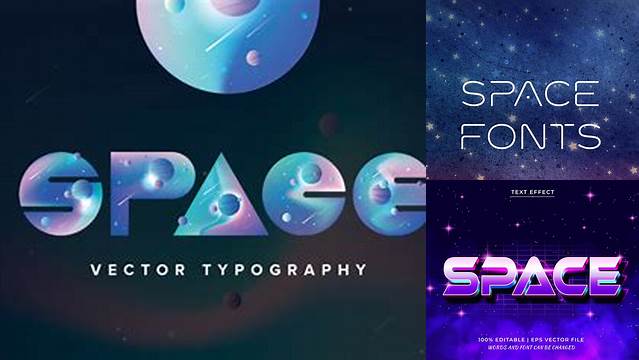
Explore Awesome Space Fonts In Microsoft Word
Hey guys! Ever wanted to give your documents that out-of-this-world feel? Maybe you're creating a presentation about the cosmos, designing a sci-fi movie poster, or just want to inject some interstellar flair into your personal projects. Whatever the reason, using space fonts in Microsoft Word can be a game-changer. These fonts are designed to evoke the vastness, mystery, and futuristic vibe of outer space. From sleek, futuristic sans-serifs to more decorative, alien-inspired designs, there's a whole universe of typography out there waiting for you to explore. Let's dive into how you can find, install, and use these cosmic fonts to make your Word documents truly stellar!
Finding the Best Space Fonts for Your Word Projects
Finding the right space fonts to use in Microsoft Word is like embarking on a cosmic treasure hunt. You want something that screams 'galaxy' or 'spaceship' without being unreadable. The good news is, there are tons of places to find these stellar typefaces. Websites like Google Fonts, DaFont, Font Squirrel, and Adobe Fonts are fantastic starting points. When you're browsing, keep an eye out for keywords like 'sci-fi,' 'futuristic,' 'space,' 'galaxy,' 'alien,' 'cosmic,' or 'technology.' These terms will often lead you to fonts that have that distinctive outer-space aesthetic. Some fonts might have sharp, angular edges like a rocket ship, while others might have a more rounded, ethereal feel reminiscent of distant nebulae. Don't be afraid to experiment! Download a few options that catch your eye and see how they look in your document. Remember, the goal is to find a font that enhances your message and theme. A font that’s too complex might be difficult to read in large blocks of text, so consider where and how you’ll be using it. For headlines or titles, you can often get away with more decorative and bold designs. For body text, it’s usually best to stick with something cleaner and more legible, even if it still carries a subtle space-age vibe. Think about the overall mood you want to create – is it a gritty, industrial space station, or a sleek, utopian future? Your font choice will play a massive role in setting that tone.
Utilizing Space Fonts in Word Documents: Creative Applications
Now for the fun part: using your newly installed space fonts in Word! The possibilities are as vast as the universe itself. For presentations, a bold, futuristic font for your title slide can instantly grab attention. Think about using a sleek, angular font for headings in a report about astronomy or aerospace engineering. It adds a professional yet thematic touch. For invitations to a space-themed party, a more whimsical or alien-looking font could be perfect. Imagine an 'out of this world' wedding invite or a birthday party announcement! Even for less obvious applications, like a creative writing piece set in space, these fonts can immerse your readers. Use a slightly distressed or rugged space font for a story about asteroid mining, or a clean, minimalist one for a tale of interstellar diplomacy. Don't limit yourself to just text! Combine your chosen space fonts with relevant imagery – stars, planets, rockets, or abstract cosmic patterns – to create truly captivating designs within Word. You can even use different space fonts for different elements within the same document to create visual hierarchy and interest. For instance, a strong, blocky font for section titles and a slightly more subdued, yet still spacey, font for subheadings. The key is to maintain readability while maximizing the thematic impact. Experiment with font sizes, weights (bold, regular, light), and even colors to further enhance the space aesthetic. A deep blue or black background with white or silver text can look incredibly cosmic.
Designing Futuristic Titles with Space Fonts
When you’re crafting titles or headlines in Microsoft Word, space fonts can really make them pop. These fonts are often designed with a futuristic aesthetic in mind, featuring sharp lines, geometric shapes, or unique character designs that evoke technology and the future. For example, a title like 'Journey to Andromeda' could be rendered in a font that looks like it was beamed directly from a starship. Think about fonts that have extended ascenders and descenders, or perhaps a subtle glow effect if you're printing on a glossy paper or using a design program to further enhance the Word output. Some space fonts might mimic the look of digital displays found on spacecraft, offering a very authentic sci-fi feel. Others might be inspired by alien alphabets, providing an exotic and mysterious vibe. When choosing a font for your title, consider its legibility from a distance. If it’s for a poster or a presentation slide, people need to be able to read it quickly. Pair a strong, eye-catching space font for your main title with a more conventional, yet still thematically appropriate, font for any subtitles or supporting text to ensure clarity. You can also play with capitalization – ALL CAPS often works well for futuristic titles, giving them a sense of boldness and authority. Experimenting with letter spacing (kerning) can also refine the look; sometimes, slightly wider spacing can give a more technical or open feel. Remember, the title is often the first impression, so making it visually exciting with the right space font is crucial for drawing your audience in.
Enhancing Readability with Subtle Space-Themed Fonts
While many space fonts are bold and decorative, it’s essential to remember that readability is paramount, especially for longer passages of text in Microsoft Word. Thankfully, there are plenty of space-themed fonts that offer a futuristic or cosmic feel without sacrificing legibility. These fonts often retain the core structure of classic typefaces but incorporate subtle design elements like slightly sharper serifs, rounded terminals, or a cleaner, more modern silhouette. For instance, a font might have a name like 'Galactic Sans' but look remarkably similar to a standard Arial or Calibri, just with a touch more polish and an underlying futuristic vibe. When choosing a font for body text, look for clear, well-defined characters. Avoid fonts with excessive stylistic alternates or overly condensed letterforms, as these can become tiring to read over time. A good rule of thumb is to test the font with a decent paragraph of text to see how it flows. Does it create a smooth reading experience, or does it feel choppy and jarring? Consider using these subtler space fonts for your main content and reserve the more elaborate ones for headings and titles. This contrast creates visual interest and ensures that your readers can easily digest the information. Think of it like the background of a space scene – it’s vast and inspiring, but it doesn't distract from the main action. Similarly, a subtle space font provides atmosphere without overwhelming the content itself. It’s all about finding that perfect balance between thematic expression and functional design, ensuring your message is not only seen but also comfortably read by everyone.
Futuristic and Sci-Fi Inspired Fonts
When we talk about space fonts, the first category that usually comes to mind is the futuristic and sci-fi inspired collection. These are the typefaces that immediately transport you to the bridge of a starship or the neon-lit streets of a cyberpunk city. They often feature sharp, angular designs, metallic textures (which can be simulated with color and gradients in Word), or sleek, minimalist lines that convey advanced technology. Think of fonts that look like they’re made of circuits, or have a digital readout appearance. These fonts are perfect for projects that lean heavily into the 'science fiction' aspect of space – tales of robots, aliens, advanced civilizations, and space exploration. They are usually best suited for headlines, titles, logos, or short bursts of text where their distinctiveness can be appreciated without hindering readability. For example, using a font like 'Orbitron' or 'Exo 2' (both available on Google Fonts) can give your document an immediate sense of forward-thinking design. These fonts often play with negative space and structure in unique ways, making each letter feel like a piece of sophisticated engineering. When selecting these, consider the specific sub-genre of sci-fi you're aiming for. Is it a retro-futuristic vibe, like 'The Jetsons,' or a gritty, industrial feel like 'Alien'? The font choice can significantly influence this perception. Don't be afraid to go bold with these; they are designed to make a statement and capture the imagination, making your Word documents stand out from the ordinary.
Galactic and Cosmic Themed Fonts
Beyond the purely technological, there are space fonts that capture the more awe-inspiring and mysterious aspects of the cosmos – the 'galactic and cosmic themed' fonts. These typefaces often evoke the beauty of nebulae, the swirling patterns of galaxies, or the vast emptiness of deep space. They might feature softer, more flowing lines, subtle gradients, or even textures that suggest stardust or celestial bodies. Some might have a more ethereal or mystical quality, perfect for stories about cosmic consciousness or ancient alien prophecies. Others could be inspired by astrological symbols or astronomical charts, lending an air of ancient wisdom and wonder. These fonts are fantastic for projects that focus on the wonder and mystery of space, rather than just the technology. Think about using them for event invitations for a star-gazing party, or for a book cover about mythology and the stars. They can also add a touch of elegance and sophistication to designs that might otherwise feel too 'hard' sci-fi. When using these, consider how they pair with colors. Deep blues, purples, and shimmering silvers or golds can really bring out the cosmic feel. Experiment with effects in Word, like subtle shadows or outer glows, to mimic the luminescence of celestial objects. The goal here is to tap into the sublime beauty of the universe and translate that feeling into your typography, making your Word documents feel truly magical.
Alien and Extraterrestrial Inspired Fonts
Ready to get a little weird? The 'alien and extraterrestrial inspired' space fonts category is where things get truly creative and often a bit bizarre! These fonts are designed to look like they originated from another world entirely. They might feature unconventional letterforms, strange symbols, or an overall aesthetic that defies easy description. Think jagged edges, pulsating shapes, or characters that seem to writhe and shift. These fonts are perfect for projects that involve encountering alien life, exploring unknown planets, or dealing with truly otherworldly phenomena. They can add a sense of the unknown, the bizarre, and the downright strange to your Word documents. Use them sparingly for maximum impact, perhaps for a key alien name, a mysterious artifact description, or a title that needs to feel truly out of this world. Imagine a headline for a blog post about 'The Roswell Incident' or a fictional story about encountering a bizarre alien species. These fonts can instantly set a tone of mystery and intrigue. However, be warned: these fonts can sometimes be challenging to read. It’s crucial to test them thoroughly to ensure your audience can decipher the message. Pairing them with a very clean, standard font for the rest of the text is usually a wise strategy. These fonts are your go-to when you want to push the boundaries of conventional design and make your content feel genuinely alien.
Retro Space Age Fonts
Let's take a trip back in time, shall we? The 'retro space age' space fonts category taps into the optimism and distinct aesthetic of the mid-20th century's fascination with space exploration. Think of the atomic age, Sputnik, early NASA missions, and the Jetsons! These fonts often have a distinctive charm, characterized by rounded edges, bubbly forms, playful curves, and sometimes a slightly kitschy feel. They evoke a sense of optimistic futurism, where space travel was seen as exciting and full of wonder, often depicted with sleek rockets and friendly robots. These fonts are excellent for projects that want to capture that specific nostalgic vibe. Perhaps you're designing an invitation for a 1950s-themed sci-fi night, creating a poster for a retro-futurist art exhibition, or writing a story that harks back to that era. Fonts like 'Peace Sans' or 'Bangers' (though not strictly 'space,' they have the vibe) can help achieve this. They offer a lighter, more approachable take on the space theme compared to the more serious or gritty sci-fi fonts. They can bring a sense of fun and retro cool to your Word documents. When using these, consider pairing them with vintage color palettes – pastels, muted tones, or bold primary colors often associated with that period. It's all about recapturing that unique blend of retro style and forward-looking aspiration that defined the early space age.
Minimalist and Clean Space Fonts
Not all space fonts need to be flashy or overtly themed. Sometimes, the most effective way to convey a sense of the future or space is through minimalist and clean design. This category of fonts focuses on simplicity, geometric precision, and a streamlined aesthetic. These typefaces often feature clean lines, uniform stroke widths, and well-defined letterforms, giving them a modern, sophisticated, and subtly futuristic feel. Think of fonts that you might see on the interface of a high-tech device or the signage in a futuristic city. They convey efficiency, order, and advanced design without being overly decorative. These are incredibly versatile and can be used across a wide range of projects, from technical manuals and corporate reports to minimalist website designs or app interfaces. Their strength lies in their legibility and their ability to impart a sense of professionalism and cutting-edge technology. Fonts like 'Montserrat,' 'Lato,' or 'Roboto' (all widely available) have a clean, modern feel that can easily be adapted to a space theme with the right context and color palette. When you want your design to feel sleek, sophisticated, and forward-thinking without shouting 'space!', these minimalist fonts are your best bet. They provide an understated elegance that speaks volumes about advanced design and forward momentum, making your Word documents feel polished and contemporary.
Choosing the Right Font Pairing
Alright guys, let's talk about making your space fonts work harmoniously within your Microsoft Word documents. Font pairing is key to creating a professional and visually appealing design. When you're using a distinctive space font for your headings or titles, it's crucial to select a complementary font for your body text. The goal is usually to pair a more decorative or eye-catching font with a simpler, highly legible one. For example, if you choose a bold, angular sci-fi font for your main title, opt for a clean sans-serif like Arial, Calibri, or even a more subtly themed font like 'Open Sans' for your paragraphs. This contrast ensures that your headlines grab attention while your main content remains easy to read. Think of it like background music and a lead singer – one sets the mood, the other delivers the message clearly. Avoid pairing two highly decorative fonts together, as this can lead to visual clutter and make your document difficult to digest. Always test your pairings by writing out a few sentences or a paragraph. Does it look balanced? Is it easy on the eyes? Sometimes, even a slight variation in font weight (e.g., using a light or regular weight of your heading font for subheadings) can create a nice hierarchy. Don't be afraid to experiment, but always keep readability and the overall aesthetic of your space theme in mind. A well-chosen font pairing elevates your design from amateur to professional, making your cosmic creations shine.
Mastering Font Size and Hierarchy
When you're working with space fonts in Word, understanding font size and establishing a clear hierarchy is super important. You want your readers to easily navigate your document and understand what's most important. Generally, your main titles should be the largest, followed by subheadings, and then your body text should be the smallest (but still comfortably readable). For space-themed documents, you can use font size strategically to enhance the theme. For instance, a huge, impactful title in a bold space font can immediately convey a sense of grandeur, like the title of an epic space saga. Subheadings can be slightly smaller but still distinct, perhaps in a lighter weight of the same font or a complementary font. Body text should be sized appropriately for comfortable reading – usually between 10-12 points, depending on the font. Don't go too small, or your readers will need a telescope! Conversely, avoid making everything the same size, as this creates a flat, uninteresting design. Use variations in size to guide the reader's eye through the information. For instance, you might use a slightly larger size for the first sentence of a paragraph (a drop cap effect, essentially) to draw readers in. This control over size and hierarchy is crucial for maintaining clarity, especially when using unique or decorative space fonts that might otherwise be difficult to scan quickly. It ensures your cosmic message gets across loud and clear.
Playing with Font Colors and Effects
Let's add some cosmic sparkle, shall we? Using font colors and effects in Microsoft Word can really bring your space fonts to life and amplify the interstellar theme. Think about the colors of the universe: deep blues, vibrant purples, fiery oranges, stark blacks, and shimmering silvers or golds. These are your palette! For a classic space look, try white or light grey text on a dark blue or black background. This mimics the stars against the night sky. You can also use gradients to create metallic effects or simulate the look of distant nebulae. Experiment with subtle effects like shadows or outer glows. A soft outer glow can make your text appear luminous, like a distant star or a glowing alien artifact. A subtle drop shadow can add depth and make your text stand out from the background. For a more futuristic feel, consider using metallic gradients – silver, chrome, or even iridescent colors. Remember, the key is often subtlety. Overdoing effects can make your text look cluttered and unprofessional. Always ensure that your chosen colors and effects maintain readability. Test them in different lighting conditions if you were printing the document. The goal is to enhance the space theme and make your text visually engaging without sacrificing the core message. It’s like adding stardust to your design – a little goes a long way!
Ensuring Readability with Bold and Italic Styles
Even with the coolest space fonts, you still need to make sure your text is readable, guys. That's where bold and italic styles come in handy. Bold is fantastic for emphasizing key terms, making them stand out like distant planets in the night sky. If you're introducing a new concept, a crucial piece of data, or a character's name, making it bold ensures it catches the reader's eye. Use bold sparingly, though; too much bold text can feel aggressive and disrupt the flow. Italics are great for a slightly different kind of emphasis, often used for foreign words, thoughts, or titles of works within your text. In a space context, you might use italics for alien species names or for conveying a sense of internal monologue from a character aboard a spaceship. Be mindful that some decorative space fonts might have less distinct bold or italic variants, or they might not render as clearly. Always test these styles to see how they look and if they maintain legibility. If a specific space font's bold or italic versions look clunky or unreadable, it might be better to use a different font for emphasis or stick to sentence case for clarity. The smart use of bold and italics helps guide the reader and highlight important information, making your cosmic narrative or report easier to follow.
Using Space Fonts for Specific Document Types
So, how do you tailor your space fonts for different kinds of documents in Microsoft Word? Let’s break it down. For a science fiction story or novel, you might opt for more dramatic and atmospheric fonts. A title could be in a bold, alien-inspired font, while the main text might use a clean, readable font with a subtle futuristic edge. The key is immersion. For presentations or slideshows, clarity and visual impact are paramount. Use bold, attention-grabbing space fonts for titles and key bullet points, but ensure your main text is easily readable from a distance. Think simple, impactful designs. For invitations or party flyers, you can get more creative and playful. A themed font that clearly shouts 'space party!' or 'galaxy gala!' would be perfect. Don't worry too much about long-form readability here; it's about setting the mood. For technical reports or academic papers related to space, a minimalist, clean, and highly legible font is usually the best choice. While you might still use a subtle space-themed font, prioritizing clarity and professionalism is essential. Think sleek, modern, and functional – like the control panel of a spacecraft. For personal projects or creative journaling, the sky's the limit! Use whatever space fonts best express your creativity, whether it's whimsical, retro, or cutting-edge. The context of your document will always guide your font choices, helping you select the perfect cosmic typeface for the job.
Popular Online Font Repositories
Guys, if you're on the hunt for the perfect space fonts, the internet is your oyster! There are numerous fantastic online repositories where you can discover, download, and sometimes even preview thousands of typefaces. Google Fonts is a brilliant, free resource offering a vast library of high-quality fonts that are easily searchable. You can filter by style, popularity, and even thickness, making it a great place to start for clean, modern, and often subtly futuristic fonts. DaFont is another massive archive, known for its eclectic mix of free fonts, including many creative and themed designs. You'll find tons of 'sci-fi,' 'fantasy,' and 'techno' categories here, perfect for finding those unique space vibes. Just be sure to check the licenses – many are free for personal use but require a purchase for commercial projects. Font Squirrel is excellent for finding free fonts that are commercially licensed, offering a curated selection of high-quality typefaces. They also have a great font identifier tool if you see a font you like elsewhere. Adobe Fonts (included with a Creative Cloud subscription) provides a premium collection of professional fonts, many of which are perfect for space-themed designs. Browsing these sites, using keywords like 'space,' 'galaxy,' 'futuristic,' 'robot,' or 'cyberpunk,' will yield a universe of options to download and install into Word.
Free vs. Paid Space Fonts: What's the Difference?
When diving into the world of space fonts, you'll quickly notice there's a distinction between free and paid options. Free fonts, often found on sites like DaFont or Google Fonts, are fantastic for personal projects, experimentation, or when you're on a tight budget. They can offer incredible creativity and stylistic range, allowing you to explore many different cosmic aesthetics without spending a dime. However, 'free' often comes with caveats. Many free fonts are released under licenses that restrict commercial use – meaning you can't use them for logos, products, or anything that makes money. They might also lack the extensive character sets, weights (like light, bold, regular), and OpenType features (like ligatures or stylistic alternates) that professional fonts offer. Paid fonts, on the other hand, typically come from foundries or independent designers and usually cost money. The advantage here is robust licensing – you generally get rights for commercial use. They also tend to be meticulously crafted, offering a wider range of weights, styles, extensive language support, and advanced typographic features. For professional or client work, investing in a paid space font can ensure quality, legal compliance, and a more polished final product. Think of it as buying a quality tool versus a free, sometimes less reliable, one.
Navigating font licenses is a crucial step when downloading space fonts, especially if you plan to use them beyond personal doodling in Microsoft Word. A font license is essentially a legal agreement between you (the user) and the font creator or distributor. It outlines how you can and cannot use the font. Common licenses include: Personal Use Only: This is restrictive. You can use the font for your own enjoyment, but not for anything public-facing or commercial. Commercial Use: This allows you to use the font for business purposes, like marketing materials, logos, websites, or products. There might be different tiers of commercial licenses (e.g., for small businesses vs. large corporations). Desktop/App License: This typically covers installation on a certain number of computers for use in desktop applications like Word. Webfont License: If you plan to use the font on a website, you'll likely need a specific webfont license. Open Source/SIL License: These are often very permissive, allowing broad use and modification, but still require attribution or adherence to certain conditions. Always read the license! It's usually found on the download page or within the font's readme file. Ignoring licenses can lead to copyright infringement issues, so it's better to be safe than sorry when choosing your cosmic typefaces.
Checking Font Compatibility with Microsoft Word
Before you get too excited about a new space font, it's wise to ensure it's compatible with Microsoft Word. Generally, fonts that use standard file formats like .ttf (TrueType Font) and .otf (OpenType Font) are widely compatible with both Windows and macOS, and therefore with Microsoft Word. These are the most common formats you'll encounter. Some older or more specialized fonts might come in formats like .fon or .woff (web font format), which might not install or function correctly directly within Word. If you download a font and it doesn't appear in Word's font list after installation and restarting the application, check the file format. You might need to find a converted version or stick to more standard formats. Most reputable font download sites will clearly indicate the file format. When in doubt, search for the font name plus '.ttf' or '.otf' to see if a compatible version is available elsewhere. Ensuring compatibility upfront saves you the headache of troubleshooting later and guarantees your stellar designs can be implemented smoothly in your Word documents.
Tips for Organizing Your Font Collection
As you start downloading more and more space fonts, your collection can quickly become a chaotic nebula! Having a good organization system is key to finding the perfect font when you need it. First, create a dedicated folder on your computer, perhaps named 'My Fonts' or 'Creative Fonts.' Within that, you can create subfolders for different categories, like 'Space Fonts,' 'Sci-Fi,' 'Retro,' 'Minimalist,' etc. When you download a font, extract it immediately and place the .ttf or .otf files into the appropriate subfolder. Consider using a font management application. Software like FontBase (free), NexusFont (free for Windows), or Suitcase Fusion (paid) allows you to preview, activate, and deactivate fonts without needing to install them permanently. This is incredibly useful for managing large libraries and preventing system slowdowns. You can often tag fonts with keywords (like 'space,' 'galaxy,' 'futuristic') within these managers, making them searchable. Keep your system fonts separate from your downloaded fonts. Regularly back up your font collection to an external drive or cloud storage to prevent data loss. A well-organized font library means less time searching and more time creating cosmic masterpieces in Word!
Creating Text Effects and Styles
Microsoft Word offers built-in tools that allow you to go beyond basic font usage and create cool text effects with your space fonts. While not as sophisticated as dedicated graphic design software, you can still achieve some impressive results. Use the 'Text Effects' option found in the Font group on the Home tab. Here, you can apply presets that mimic outlines, shadows, reflections, and glows. For a space theme, try applying an 'Outer Glow' effect in a color like electric blue or cosmic purple to a clean, futuristic font. A 'Reflection' effect can give text a sleek, metallic appearance. You can also manually customize these effects. For instance, select your text, go to 'Format Shape' (or 'Format Text Effects' depending on your Word version), and adjust the glow color, size, and transparency. Combine different effects for unique looks. Perhaps an outline on a font with a subtle gradient fill? For a truly 'digital readout' look, you might use a monospaced space font and add a subtle green or cyan outer glow. Remember to use these effects judiciously; overdoing them can make text unreadable. These effects are perfect for titles, logos, or call-to-action buttons within your Word documents to give them that extra sci-fi polish.
Working with Glyphs and Special Characters
Many space fonts, especially those designed with a sci-fi or alien theme, come with special glyphs and characters that you won't find on a standard keyboard. These can include alternate letterforms, stylistic swashes, ligatures, or even unique symbols and icons. To access these in Microsoft Word, you'll use the 'Glyph' panel. You can usually find this under the 'Insert' tab, within the 'Symbols' dropdown menu. Select your space font, and the panel will display all the available characters, including the hidden gems. Clicking on a glyph you want to use and then clicking 'Insert' will add it to your document. Some fonts might offer multiple versions of the same letter (e.g., a swashy 'A' versus a simple 'A'), allowing you to add unique flair. Others might include small icons like stars, arrows, or futuristic symbols that can be used as decorative elements or bullet points. Exploring the glyphs is like unlocking secret alien code! It allows you to push the stylistic boundaries of your chosen font and add authentic, unique details to your space-themed Word creations. It’s a powerful way to make your typography truly stand out.
Integrating Space Fonts with WordArt
While dedicated space fonts offer a direct route to a cosmic aesthetic, you can also leverage Microsoft Word's WordArt feature to achieve similar or even enhanced effects. WordArt allows you to create stylized text with various fills, outlines, and effects, which can then be applied to any font, including your downloaded space fonts. To use it, go to the 'Insert' tab and click 'WordArt.' Choose a style, and then type your text. Now, here's the trick: you can change the font of the WordArt object to one of your installed space fonts. After that, you can further customize it using the WordArt-specific formatting options (under the 'Shape Format' tab). Experiment with gradient fills that mimic nebulae or metallic surfaces. Apply 'Transform' effects to make your text curve or warp like it’s on a spaceship's display screen. You can combine a unique space font with a WordArt gradient and a subtle text effect for a truly dynamic title. WordArt essentially acts as a powerful layer of customization on top of your chosen font, enabling you to create highly customized, eye-catching text elements that perfectly capture the essence of outer space within your Word documents. It’s a great way to add that extra professional flair.
Using Outline and Shadow Effects Creatively
Let's get a little more granular with those text effects we talked about, guys. Using outline and shadow effects creatively with your space fonts can add significant depth and visual interest to your Word documents. With your text selected, go to the 'Text Effects' menu (often under the 'Format' tab when text is selected) and choose 'Outline.' You can select a color for the outline – perhaps a bright contrasting color like neon green or electric blue against a dark font, or a subtle silver outline on a black font. You can also adjust the 'Weight' of the outline to make it thicker or thinner. For futuristic or cyber-themed documents, a sharp, clean outline works wonders. For shadows, explore the 'Shadow' options. A 'Drop Shadow' can make your text appear to lift off the page, adding a sense of dimensionality. Experiment with the offset, blur, and color of the shadow. A soft, dark shadow can create a sense of depth, while a brighter, sharper shadow might evoke a 'hard light' effect, common in sci-fi visuals. Combining a font with a slight outline and a subtle shadow can create a professional, polished look that enhances the space theme without being overwhelming. These effects are your tools for sculpting text, giving it a tangible, almost physical presence on the page, making your cosmic creations more impactful.
Embedding Fonts for Document Portability
This is a super important tip, especially if you're sharing your Word documents featuring space fonts with others. Font embedding ensures that your document looks the same on any computer, even if that computer doesn't have your special space fonts installed. To do this, you need to go into Word's Options: File > Options > Save. Here, you'll find a checkbox that says 'Embed fonts in the file.' Check this box! You'll usually have two options: 'Embed only the characters used in the document' (which keeps the file size smaller) or 'Embed all characters' (which makes the file larger but allows recipients to edit the text using the original fonts). For maximum compatibility and fidelity, especially if others might need to edit your document, embedding all characters is the safer bet. This prevents the dreaded 'font substitution,' where Word replaces your cool alien font with Times New Roman if it's not available on the recipient's system. It ensures your cosmic masterpiece travels through the digital void exactly as you intended, preserving its stellar appearance wherever it lands.
Embracing the Cosmic Aesthetic
So there you have it, guys! We've journeyed through the vast universe of space fonts available for Microsoft Word. From the sleek lines of futuristic designs to the mysterious allure of cosmic themes and the playful charm of retro space age styles, these fonts offer an incredible way to infuse your documents with personality and thematic depth. Embracing the cosmic aesthetic means more than just picking a cool font; it's about telling a story visually. It’s about using typography as a tool to evoke wonder, excitement, and the sheer immensity of space. Whether you're crafting a presentation on astrophysics, designing a sci-fi novel cover, or just adding some flair to a birthday invitation, the right space font can make all the difference. Remember to consider your audience, the purpose of your document, and the overall message you want to convey. Don't be afraid to experiment with different styles, colors, and effects. The universe of design is yours to explore, and with the right typographic choices, your Word documents can truly become stellar creations that capture the imagination and leave a lasting impression. Keep exploring, keep creating, and keep reaching for the stars with your designs!
The Power of Typography in Thematic Design
Ultimately, the magic of space fonts lies in the broader power of typography in thematic design. Fonts are not just letters; they are carriers of emotion, style, and meaning. A well-chosen font can instantly communicate a mood – in this case, the awe, mystery, and excitement associated with space. It shapes how the reader perceives the content before they even read a word. For space themes, this is particularly potent. The right font can make a document feel technologically advanced, ancient and mysterious, or adventurous and bold. By carefully selecting and applying space fonts, you are essentially crafting a visual narrative that complements your written content. This synergy between text and visuals is what makes design truly effective. It's about making deliberate choices that enhance the overall experience for the reader. So, the next time you're working on a project that needs that extra interstellar sparkle, remember the profound impact a simple font change can have. It’s a powerful, accessible tool for transforming ordinary documents into extraordinary thematic experiences, proving that typography is indeed a key component in bringing any vision, especially a cosmic one, to life.
Your Next Step: Download and Experiment!
Alright, aspiring cosmic designers, your mission, should you choose to accept it, is to start downloading and experimenting! We've covered a ton of ground, from finding unique space fonts on various websites to installing them, pairing them, and even adding dazzling effects in Microsoft Word. The best way to truly master this is by doing. Head over to some of the font repositories mentioned earlier – Google Fonts, DaFont, Font Squirrel – and start downloading. Try installing a few different styles. Open up Word, create a test document, and start playing around. See how a bold sci-fi title looks next to a clean body text. Try out those glow effects we discussed. Use some of those special glyphs. The more you experiment, the more intuitive font selection and application will become. Don't be afraid to make mistakes – that's part of the learning process! Think of each new font as a new star in your personal constellation of creative tools. Go forth, download some stellar typefaces, and let your imagination blast off! The galaxy of design awaits your unique touch.
Final Tip: Keep it Readable!
Before we sign off and let you loose in the typographic cosmos, one last crucial piece of advice: always, always keep it readable! Even the most visually stunning space font loses its purpose if your audience can't understand what you're trying to say. While it's tempting to go for the most complex, alien-looking font you can find, remember that legibility is king, especially for body text. Use decorative fonts for impact in titles and headlines, but ensure your main content is clear, clean, and comfortable to read. Test your fonts on different screen resolutions or print them out to check legibility. If a font feels even slightly difficult to decipher, consider a simpler alternative or reserve it for very short, decorative uses. A document that is hard to read, no matter how cool the fonts look, will fail to connect with its audience. So, balance that cosmic flair with solid, readable typography. It’s the secret ingredient to making your space-themed designs not just look good, but also communicate effectively. Happy typing, explorers!